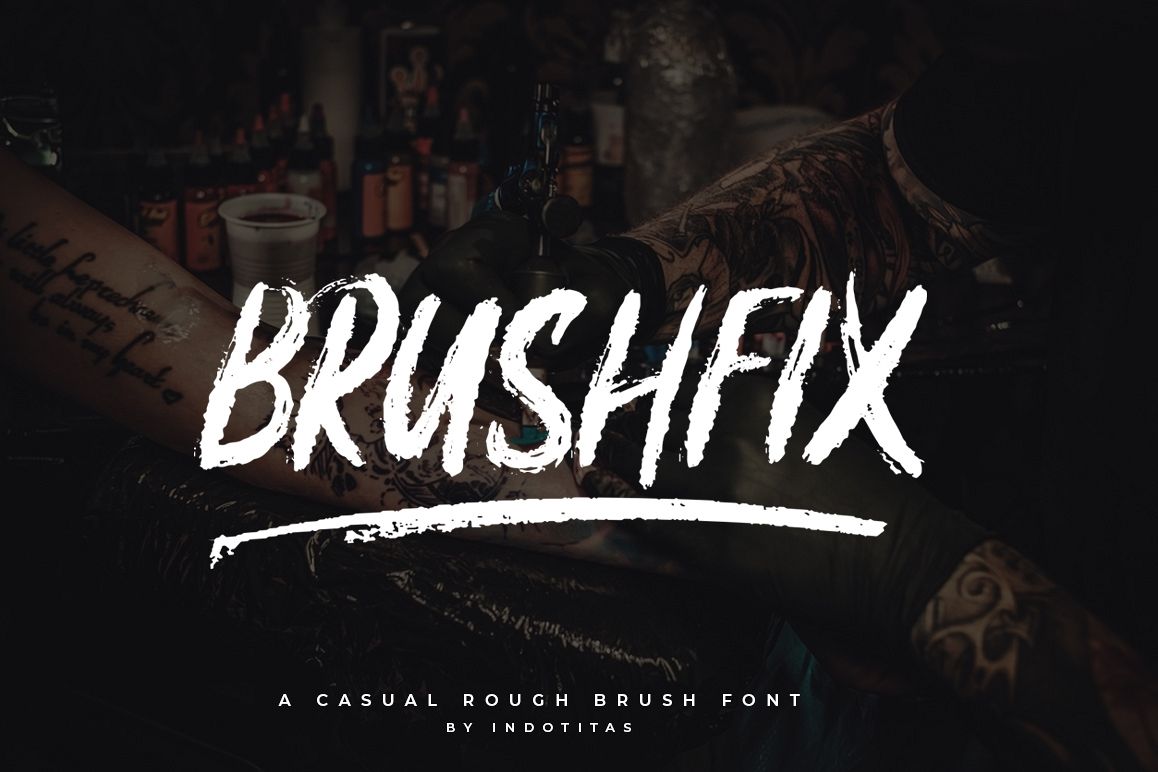
Brushfix Font
Brushfix font is a rough brush font with a clear style and good flow This font is great for your next creative project such as Logotype, printed quotes, invitations, cards, product packaging, headers, Letterhead, Poster, Apparel Design, Label, and etc.
• Basic Latin A-Z and a-z
• Symbols
• Opentype Feature
• Multingual Support